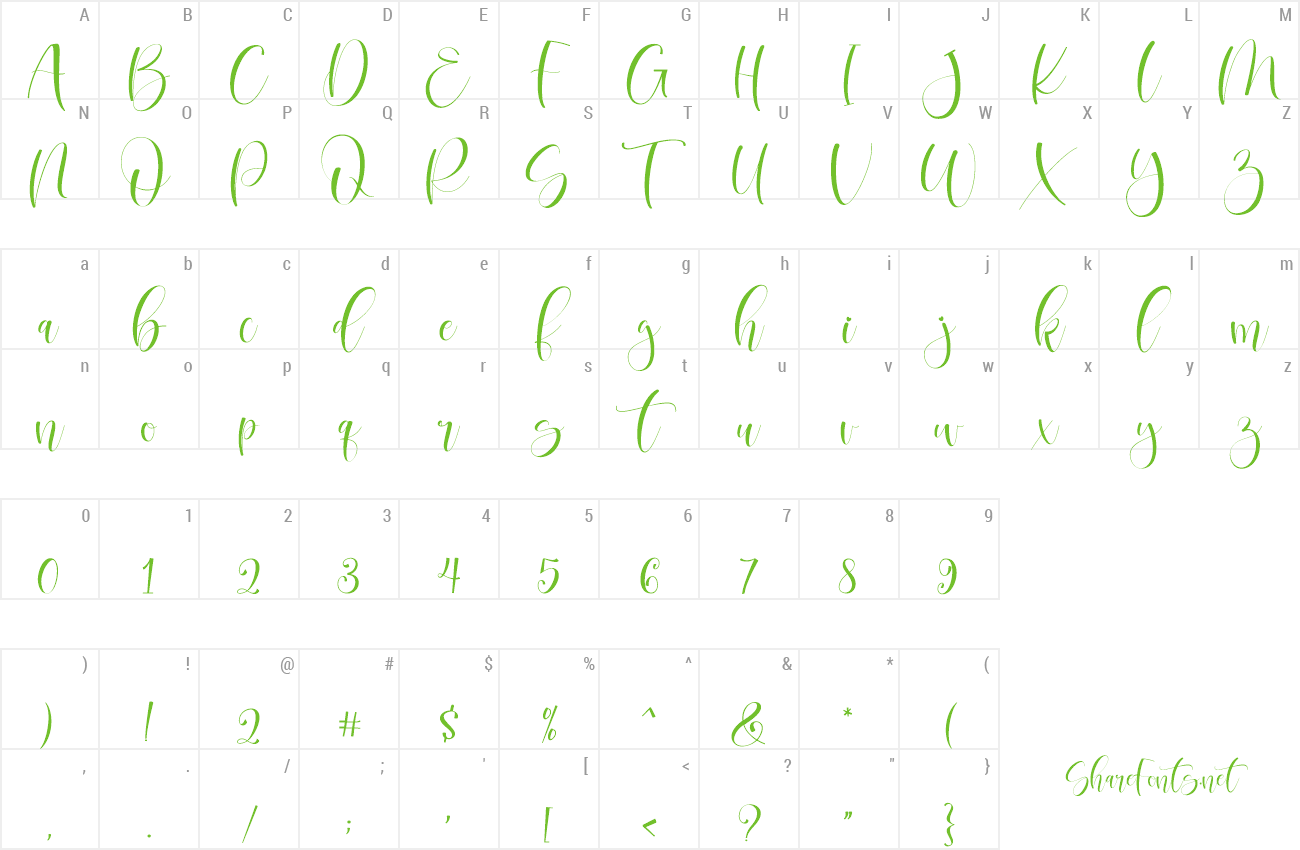
Free and Premium Quality Fonts - Best Premium FontsHandwriting alphabet hand lettering alphabet doodle lettering creative lettering styles abc alphabet simple calligraphy alphabet modern calligraphy cute fonts alphabet vector de stock libre de regalias sobre super simple abc english line alphabet701388655. Calligraphy is an artistic writing style where the pressure is varied to create thick and thin lines all in a single stroke. Looking for cute calligraphy fonts.
calligraphy cute abc fonts
The height of calligraphy was reached in the middle age where monks developed the narrow writing style called gothic allowing more words to fit on a single line as paper was expensive at the time.
Calligraphy cute abc fonts. See more ideas about handwriting fonts lettering alphabet. Every font is free to download. The writing is readable but is usually extravagant and embellished with flourishes. As a sign of natural progression it was only a matter of time before font makers got arabic calligraphy and developed distinctive fonts using it as the base.